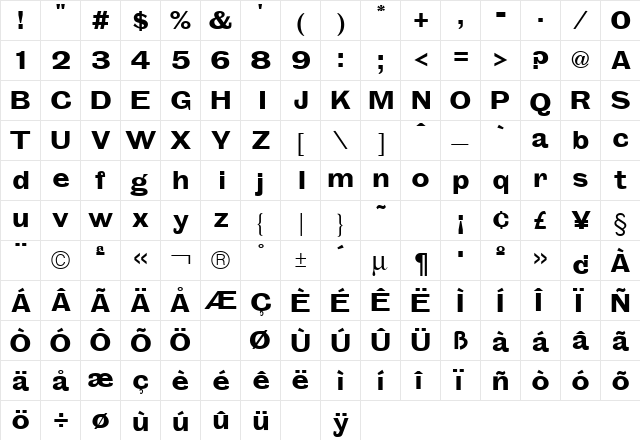
Groschen Extended Regular
Design Context for Groschen Extended Typeface
Groschen Extended is a composed and adaptable typeface that performs quietly and consistently across a wide range of design contexts.